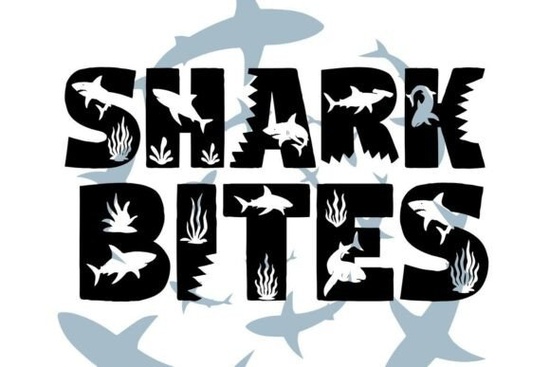
If you're looking for a fun, bold typeface that instantly adds personality to your designs, the Shark Bites Font is worth a closer look. Inspired by the jagged edges of shark teeth, this all-caps decorative display font brings playful energy and visual punch perfect for projects that need to stand out without taking themselves too seriously.
Whether you’re designing summer-themed party invites, kids’ birthday shirts, or eye-catching stickers, Shark Bites delivers a lighthearted yet striking aesthetic. Its sharp serifs and chunky letterforms give it a distinctive look that reads as both whimsical and confident ideal for crafters, print-on-demand sellers, and small businesses creating seasonal or themed merchandise.
What kinds of projects work best with Shark Bites?
This font shines in contexts where fun and boldness are welcome. Think beach parties, ocean-themed classrooms, surf shop logos, or even snack packaging with a playful twist (like gummy “shark bites”). Because it’s an all-caps display font, it’s not meant for body text but for headlines, labels, and short phrases, it grabs attention effortlessly.
- Children’s birthday invitations (especially under-the-sea or shark themes)
- T-shirt and tote bag designs for summer events
- Stickers, decals, and printable party decor
- Logo concepts for playful brands or seasonal pop-ups
- Social media graphics for promotions or announcements
How does Shark Bites compare to other decorative fonts?
Unlike script or serif fonts that lean elegant or traditional, Shark Bites leans into its theme with clear visual storytelling. Each letter mimics the angular bite of a shark’s grin making it instantly recognizable and thematically cohesive. That makes it especially useful when your design needs to communicate a specific mood or setting right away.
For example, while a font like Shark Bites Font works beautifully for a beach carnival poster, it wouldn’t suit a wedding invitation. Knowing when not to use it is just as important as knowing when to lean in.
Tips for using Shark Bites effectively
Because of its strong personality, less is often more:
- Avoid long blocks of text. Stick to headlines, names, or short calls-to-action.
- Pair it wisely. Use a clean, neutral sans-serif (like Montserrat or Open Sans) for supporting text to let Shark Bites take center stage.
- Consider color and context. Bright blues, teals, or coral tones enhance its aquatic feel, but it also pops in black on white for high-contrast minimalism.
- Test readability at small sizes. While great for large-format prints, some fine details may blur on tiny stickers or tags.
Print-on-demand creators will appreciate how well it scales for mugs, phone cases, and apparel just remember to check mockups at actual print size before publishing.
Is Shark Bites right for your next project?
If your goal is to create something upbeat, memorable, and visually thematic especially around summer, oceans, or kids’ activities this font is a solid choice. It’s not trying to be versatile; it’s designed to delight within its niche. And that focus is what makes it effective.